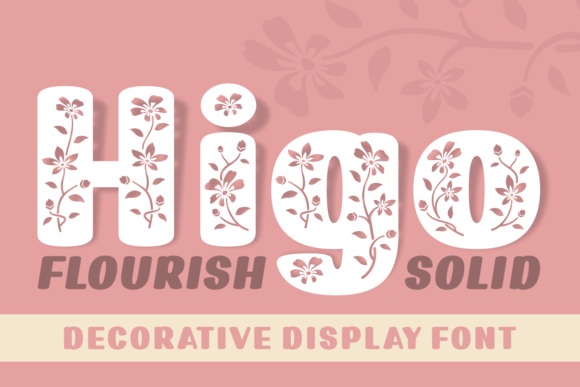
Introducing Higo Font - the best font for title headings in your designs! Created by Rizkky from 7NTypes, this decorative font family is a must-have for any designer looking to add a touch of whimsy and charm to their work.
With its bold and jolly appearance, Higo Font is perfect for creating attention-grabbing titles and headings that will make your designs stand out. Its unique and bright style brings a playful and cheerful vibe to any project, making it ideal for children's books, invitations, posters, and more.
Higo Font is not only visually appealing but also versatile, allowing you to use it in a variety of design projects. Whether you're creating a logo, a website, or a social media post, this font will add a touch of personality and creativity to your work.
But don't just take our word for it. Higo Font has received rave reviews from designers worldwide who have fallen in love with its unique style and versatility. It's no wonder why Higo Font is the go-to choice for many designers when it comes to creating eye-catching titles and headings.